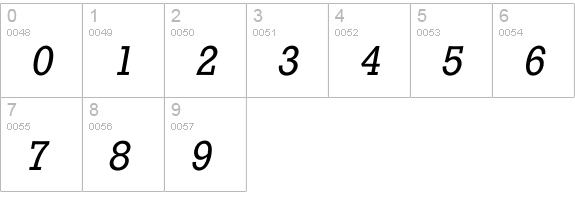
Istafford Regular is the standard, neutral variant in the Istafford typeface family \xE2\x80\x94 well suited to general body text, paragraphs, and standard typographic work.
Introducing Istafford Regular font, a versatile typeface that effortlessly combines elegance with modernity. With its clean lines and timeless appeal, this font is the perfect choice for any project, whether it's a sleek logo design, an eye-catching poster, or a sophisticated website. Istafford Regular font features a harmonious balance between thick and thin strokes, creating a sense of harmony and professionalism. Its legibility ensures that your message comes across clearly, while its subtle details add a touch of refinement. One of the best things about Istafford Regular font is that it is free. Yes, you read that right! This stunning font is freely available to download at FontsMarket.com, making it accessible to designers, entrepreneurs, and creatives on any budget. Whether you're a seasoned designer or just starting out, Istafford Regular font is a must-have in your typographic arsenal. Its versatility allows it to be used across a wide range of design projects, from branding and packaging to invitations and social media graphics. So why wait? Elevate your designs and make a lasting impression with Istafford Regular font. Download it for free today at FontsMarket.com and unlock a world of endless possibilities.